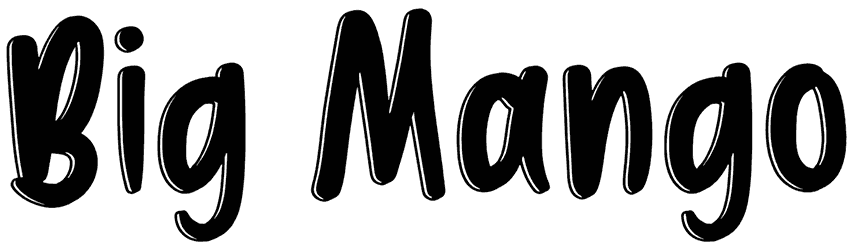
Big Mango Font
With this playful and bold lettering, your words would be more cheerful and ravishing. Big Mango is a cartoon font with full characters and a hand-drawn form. For a lot of various themes in many designs, from posters to illustrations, this fancy font can adorably become a match with them and display well.